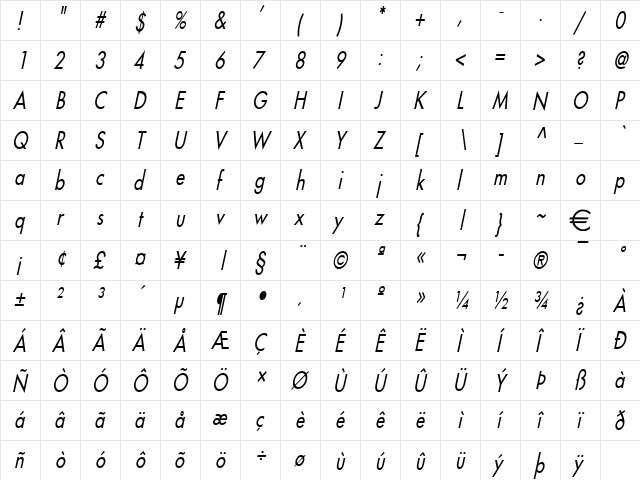
FusiCondensed Italic
Design Context for FusiCondensed Typeface
FusiCondensed is a composed and adaptable typeface that performs quietly and consistently across a wide range of design contexts. The dynamic lean of this cut emphasises speed and emphasis in any layout. Its narrow stance lets it pack a punch even in space-constrained designs.
Pro Tip: Use FusiCondensed for emphasis, pull quotes, and subheadings where its slanted energy can add rhythm to the layout.